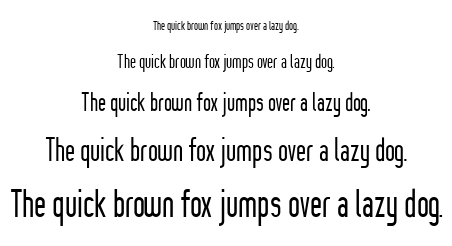
Prozak is a sans serif font, created for captions and text blocks.Available also in bold and light version, it can be easily used in different situation.For commercial licence please visit our site.